Get ready to unleash your creativity with watercolour lettering!
Watercolour Lettering 101: Master the art of colourful calligraphy!
Discover the joy of confidently creating beautiful letters using a paint brush and watercolour paints in this comprehensive mini course.
Are you ready to take your calligraphy skills to the next level?
Look no further than this mini-course, complete with engaging videos, an insightful supply guide and helpful workbook. Designed for those who love learning creative subjects, this course is the perfect solution for anyone aspiring to create beautiful watercolour letters.
With step-by-step guidance, you'll master the basics of watercolour lettering, from choosing the right tools to understanding color blending techniques. As someone who is passion about colourful lettering, I’m excited to share my knowledge and expertise, making the learning process enjoyable and rewarding.
Get ready to unlock your artistic potential and create mesmerising watercolour letters with this mini course today!
What you’ll learn
Discover unusual tools
Watch how I use some of my favourite watercolour supplies. Did you know you can get watercolour pencils?
Learn paint brush techniques
The step by step videos and workbook will give you the confidence to create beautiful letters with a paint brush.
Understand colour blending
Exploring colour theory, you’ll discover how you can create a variety of hues with just a few colours.
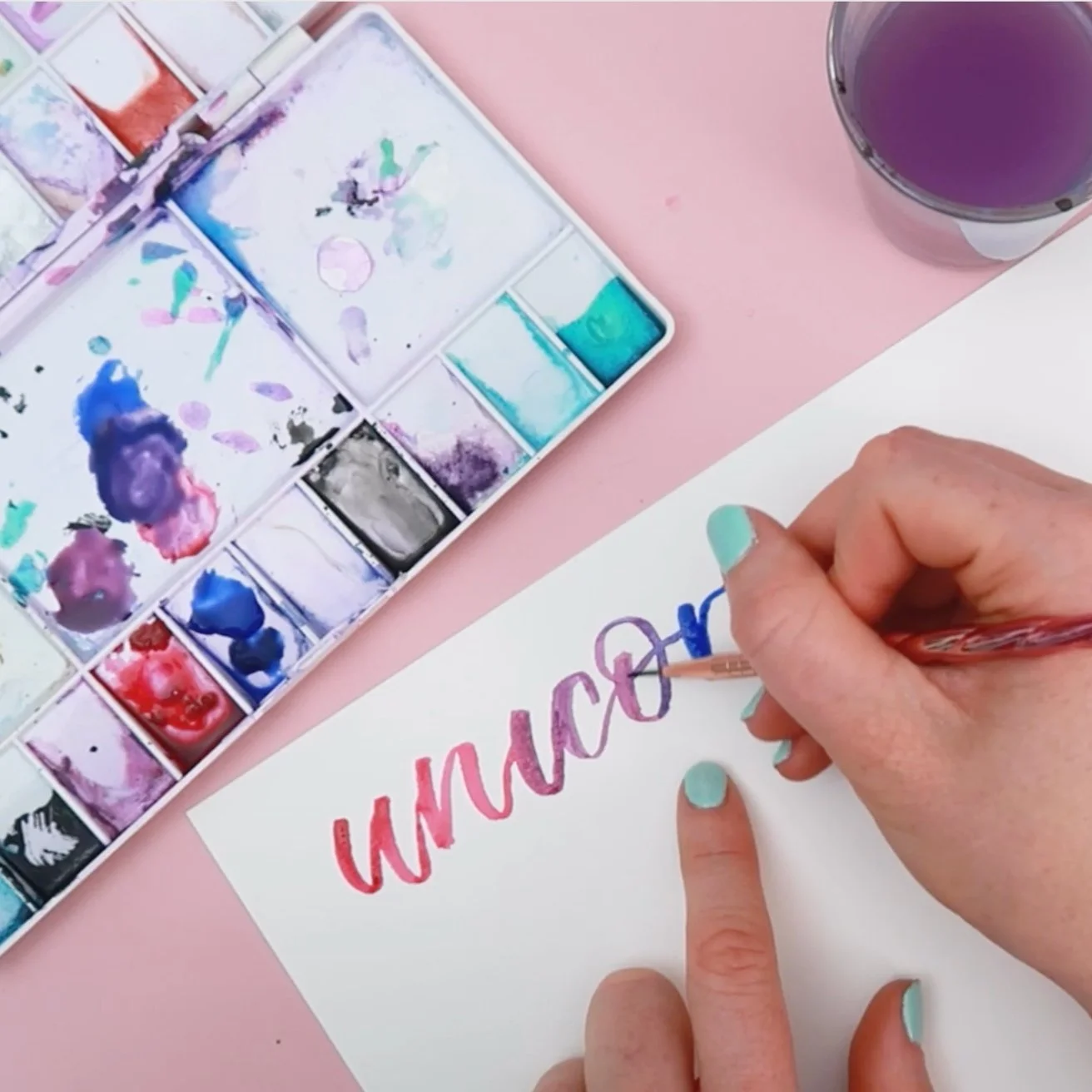
create stunning watercolour words
You’ll take everything you’ve learnt and create colour words using various fun blending techniques.
What’s included
Get ready to unleash your creativity with Watercolour Lettering 101! Let's dive into the exciting features that will help you create beautiful watercolour letters:
Insightful supply guide
Discover the essential supplies you need to bring your watercolour lettering to life. From high-quality brushes to vibrant watercolour paints, our supply guide will ensure you have everything you need to create stunning masterpieces. Including introducing you to some more unusual watercolour tools!
Video tutorials
Dive into over 3 hours of in-depth video lessons, where our expert I will guide you through each step of the watercolour lettering process. From basic techniques using a paint brush to advanced blending techniques, you'll gain the skills and confidence to create breathtaking lettering compositions
Helpful workbook
The workbook provides you with alphabet and word references, and exercises, allowing you to refine your watercolour lettering skills. Through consistent practice using the workbook as a referenceYou'll quickly build the muscle memory needed to create fluid and captivating letterforms with a paint brush.
This is a self-paced course. All the videos are pre-recorded, which means you can watch them in your own time. There are over 3 hours of videos that are split down into bite-sized tutorials. So you can choose to complete the course all in one go, or come back to each section when it suits you.